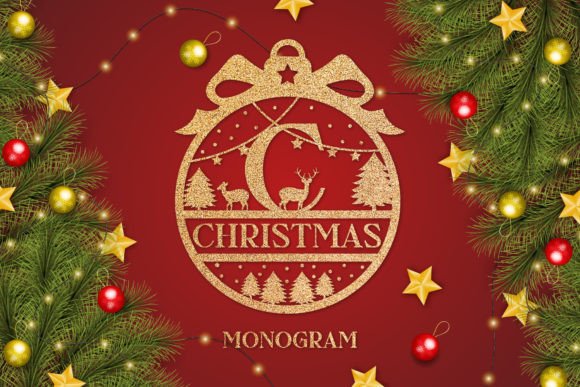
Merry Xmas Monogram Font: The Ultimate Christmas Decorative Font
Are you looking for a font that captures the essence of the Christmas season? Look no further than the Merry Xmas Monogram Font! This decorative font is designed to give your designs a festive and authentic feel that’s perfect for the holiday season. In this article, we’ll explore the features and benefits of the Merry Xmas Monogram Font and show you how to use it to create stunning designs.
What is Merry Xmas Monogram Font?
Merry Xmas Monogram Font is a decorative font that is specifically designed to evoke the feeling of the Christmas season. Its unique and fantastic look makes it perfect for creating gorgeous invitations, beautiful stationary art, shirts, crafts, farmhouse decor, SVG designs, craft projects, holiday designs, and more.
Features of Merry Xmas Monogram Font
The Merry Xmas Monogram Font has several features that make it stand out from other fonts. Some of its key features include:
- Authentic feel: The font has an authentic feel that captures the essence of the Christmas season.
- Decorative look: The font has a decorative look that makes it perfect for creating stunning designs.
- Versatile: The font can be used for a wide range of design projects, including invitations, stationary art, shirts, crafts, farmhouse decor, SVG designs, craft projects, holiday designs, and more.
Benefits of Using Merry Xmas Monogram Font
There are several benefits to using the Merry Xmas Monogram Font in your designs. Some of the benefits include:
- High-quality designs: The font is designed to create high-quality designs that will impress your friends and family.
- Unique look: The font has a unique look that will set your designs apart from others.
- Festive feel: The font has a festive feel that’s perfect for the holiday season.
Design Ideas Using Merry Xmas Monogram Font
The Merry Xmas Monogram Font can be used for a wide range of design projects. Here are some design ideas to get you started:
- Invitations: Use the font to create gorgeous invitations for your holiday parties.
- Stationary art: Use the font to create beautiful stationary art that you can use to write letters to your friends and family.
- Shirts: Use the font to create festive shirts that you can wear during the holiday season.
- Crafts: Use the font to create crafts, such as holiday decorations or gift tags.
- Farmhouse decor: Use the font to create farmhouse decor, such as signs or wall art.
- SVG designs: Use the font to create SVG designs that you can use for cutting machines.
- Craft projects: Use the font to create craft projects, such as holiday-themed DIY projects.
- Holiday designs: Use the font to create holiday designs, such as Christmas cards or holiday-themed wall art.
Tips and Tricks for Using Merry Xmas Monogram Font
Here are some tips and tricks for using the Merry Xmas Monogram Font:
- Experiment with different colors: Experiment with different colors to find the perfect color scheme for your design.
- Use it with other fonts: Use the Merry Xmas Monogram Font with other fonts to create a unique look.
- Play with font sizes: Play with font sizes to create visual interest in your design.
- Add graphics and images: Add graphics and images to your design to make it more visually appealing.
Here are some frequently asked questions about the Merry Xmas Monogram Font:
- What is the Merry Xmas Monogram Font?: The Merry Xmas Monogram Font is a decorative font that is designed to evoke the feeling of the Christmas season.
- What can I use the Merry Xmas Monogram Font for?: You can use the Merry Xmas Monogram Font for a wide range of design projects, including invitations, stationary art, shirts, crafts, farmhouse decor, SVG designs, craft projects, holiday designs, and more.